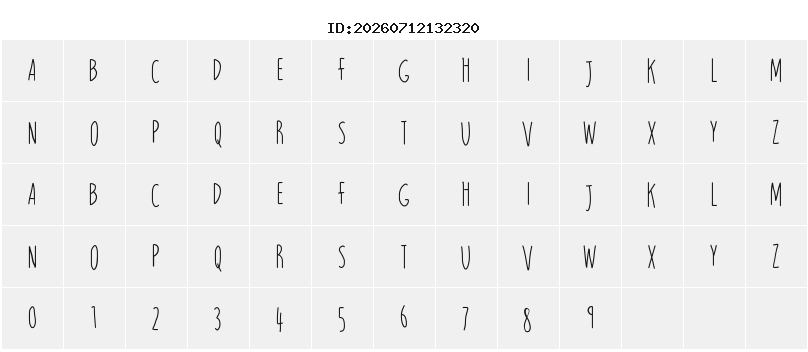
• Font Name: MAGNITUDE
• Full Font Name: MAGNITUDE
• Character Count: 84
About MAGNITUDE.ttf
MAGNITUDE.ttf is a modern, elegant sans-serif font designed for ultimate readability and visual harmony. Perfect for branding, headlines, web design, and print materials.